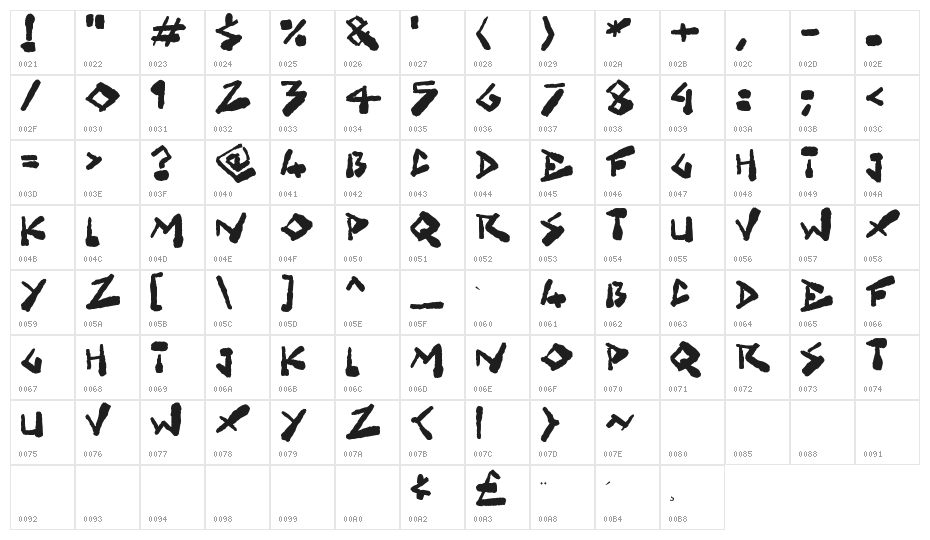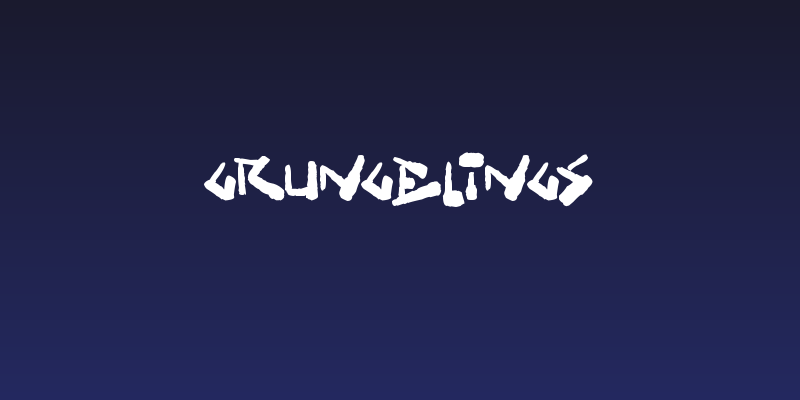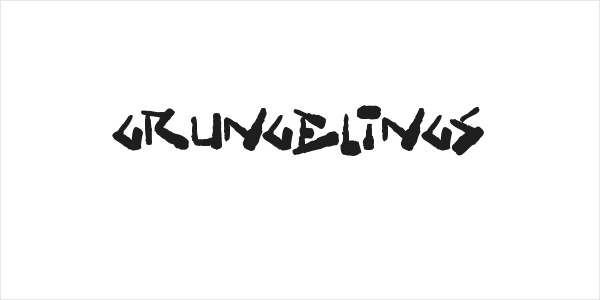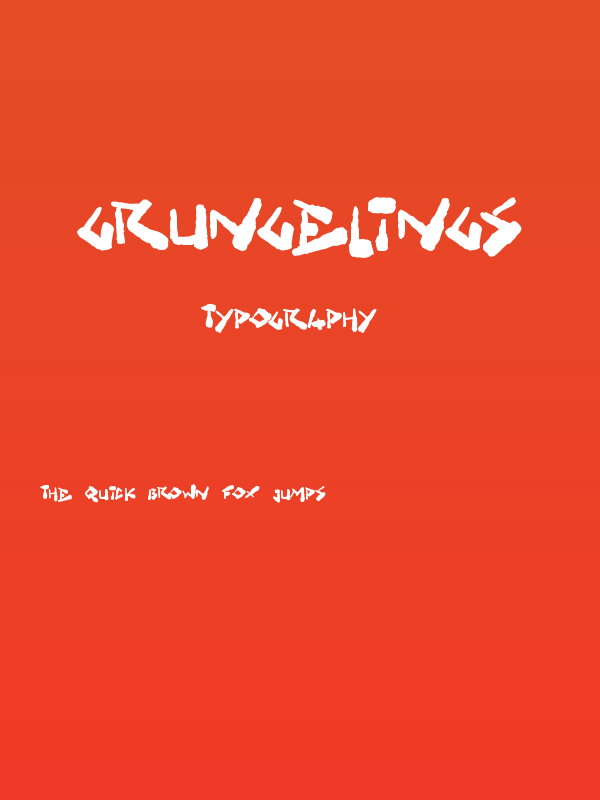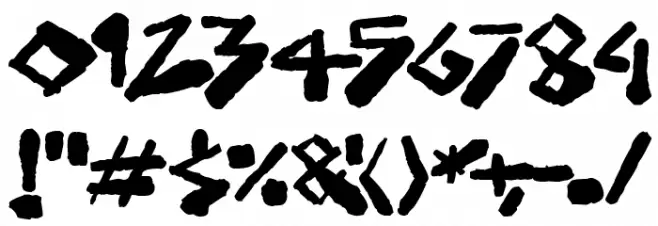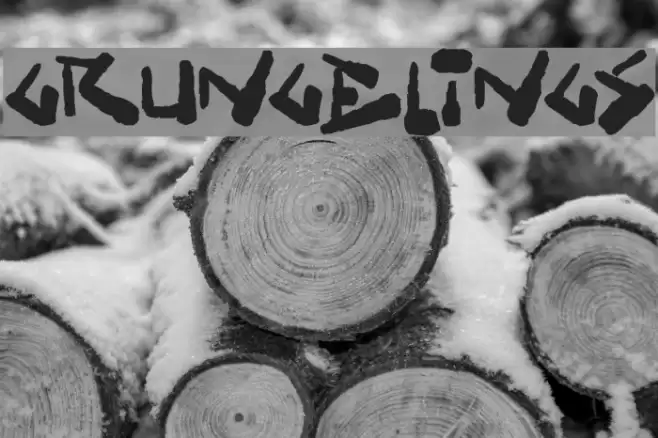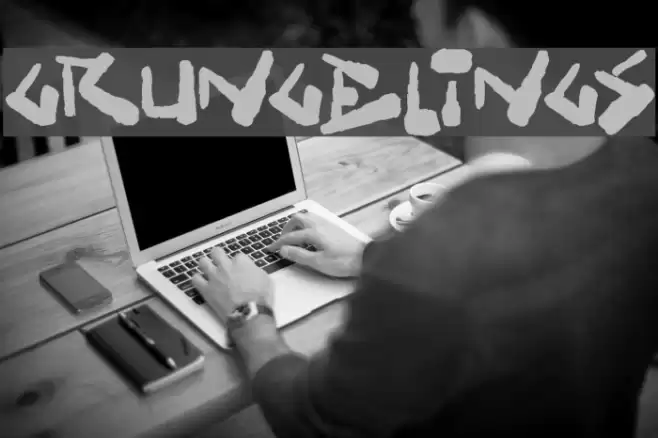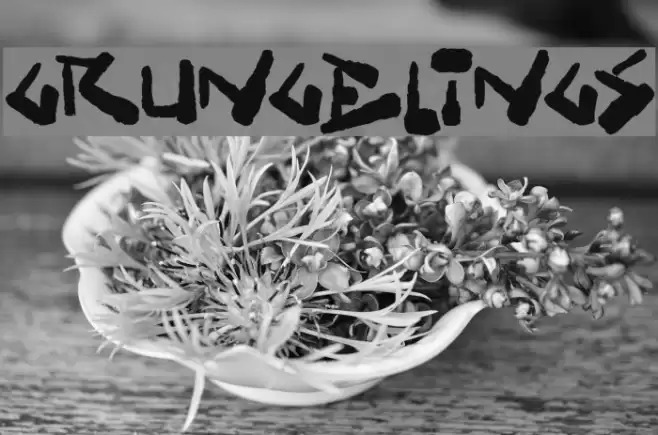
Grungelings Font
This font exudes a rugged, hand-painted aesthetic, characterized by its bold, irregular strokes and a raw, textured appearance. The letters are unevenly shaped, giving off a rebellious and edgy vibe. The uppercase and lowercase letters maintain a consistent style, with thick, jagged lines that suggest a sense of urgency and dynamism. The numbers and special characters follow suit, embodying the same rough-hewn quality. This font is perfect for projects that require a bold, eye-catching statement, such as posters, album covers, or streetwear branding.
| Overall Style | Grunge, Urban, Edgy |
| Proposed Projects | Ideal for music posters, urban-themed designs, edgy branding, and street art projects. |